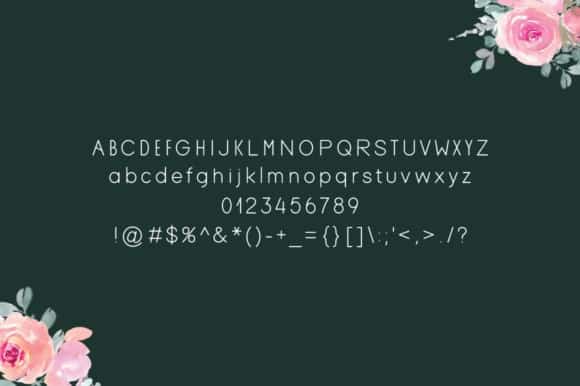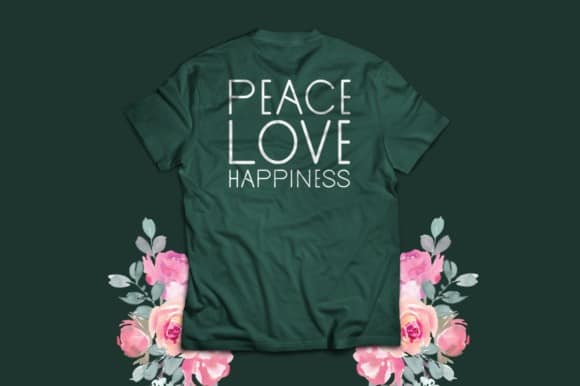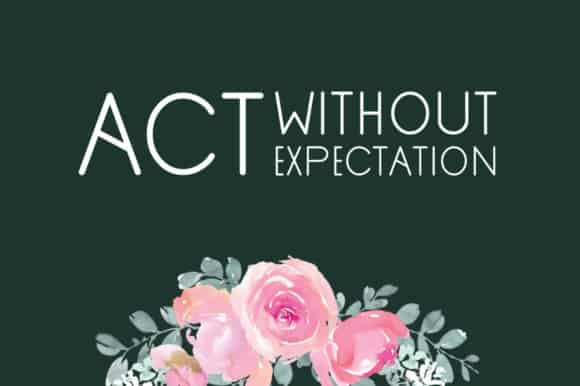
Keqima Sans Serif Font
Keqima Sans Serif Font is tidy sans serif typeface is easy to read, even at small sizes, thanks to its thick stroke and open counters. Made from font designer named Seemly Fonts. Keqima is a simple and casual sans serif display font with an undeniably clean feel. With its neat and beautiful arrangement of letters, this typeface will look outstanding in both formal and non-formal designs.